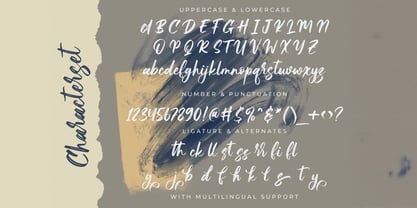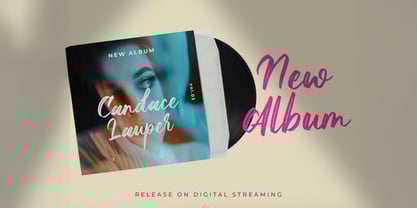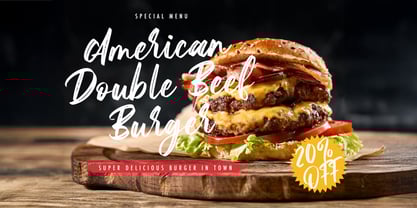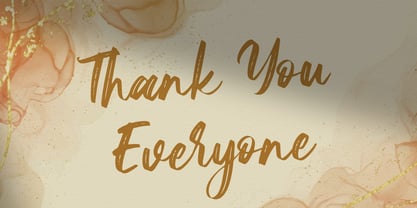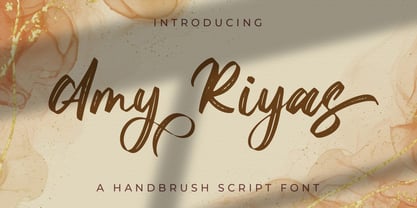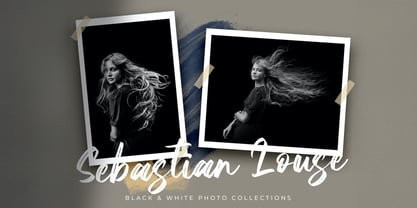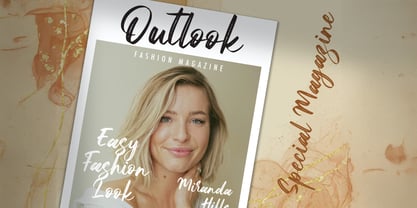
The Amy Riyas Font Family was designed by Virgiawan Listanto and published by Stringlabs Creative Studio. Amy Riyas contains 1 styles.
Amy Riyas is a bold and artistic textured brush font with a handcrafted feel and striking personality. Its flowing brush strokes and subtle grunge texture bring a sense of creativity, confidence, and raw emotion perfect for making bold visual statements.
Amy Riyas